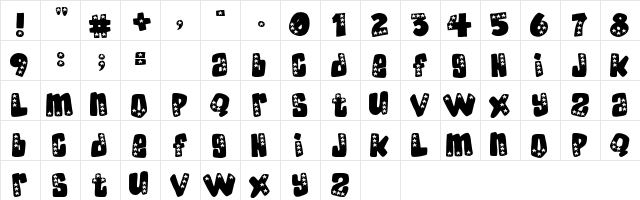
American Donuts Regular
| Designer | Pizza Dude |
Design Context for American Donuts Typeface
American Donuts is a composed and adaptable typeface that performs quietly and consistently across a wide range of design contexts.